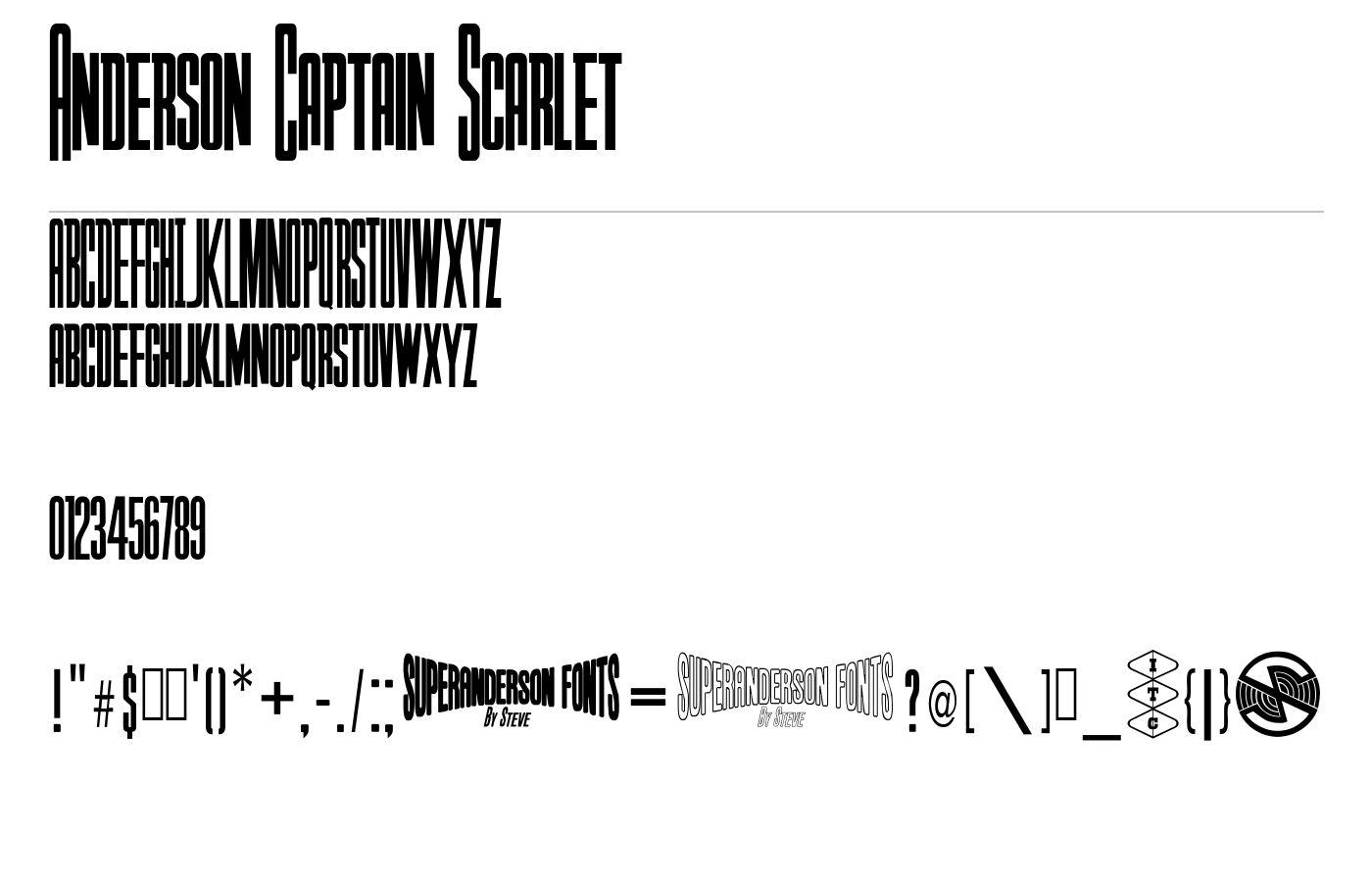
Anderson Captain Scarlet is a bold, ultra-condensed sans serif font with a striking, tall appearance that creates a strong visual impact. Its narrow letterforms and heavy weight give it a modern, dramatic feel, making it perfect for headlines, logos, and branding where a powerful and distinctive style is needed. This font works best in display contexts that demand attention and convey confidence with a sleek, urban edge.
Anderson Captain Scarlet Font